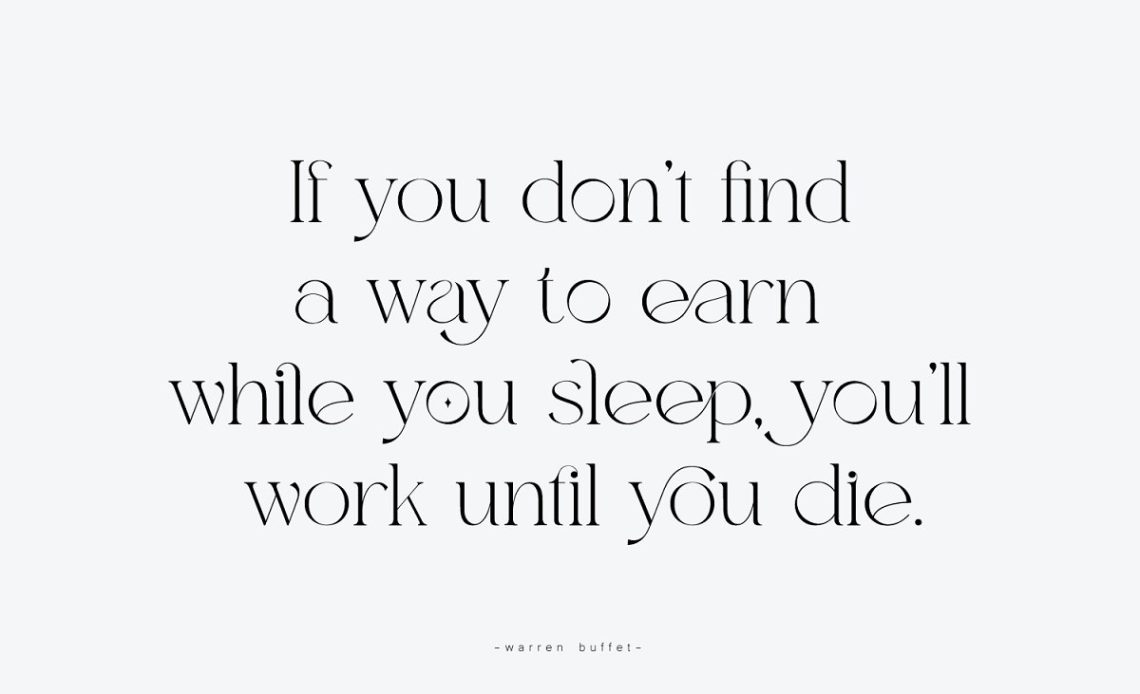
Basgem - Modern Serif Typeface is the perfect font for anyone looking to elevate their designs. Created by the talented Issam Boufelja, this font family is the best font for banner Cricut. Its modern and classy ligature style with joining ligatures make it fancy and unique, catching the eye of anyone who sees it.
Not only is Basgem great for branding, logos, and invitations, it's also perfect for watermarks and so much more. Its regular, italic, condensed, and condensed italic font styles provide endless opportunities for creativity.
One of the best things about Basgem is that it includes uppercase and lowercase letters, numbers, punctuation, alternates, and multilingual support. This means you can use it in any language and still maintain its unique style.